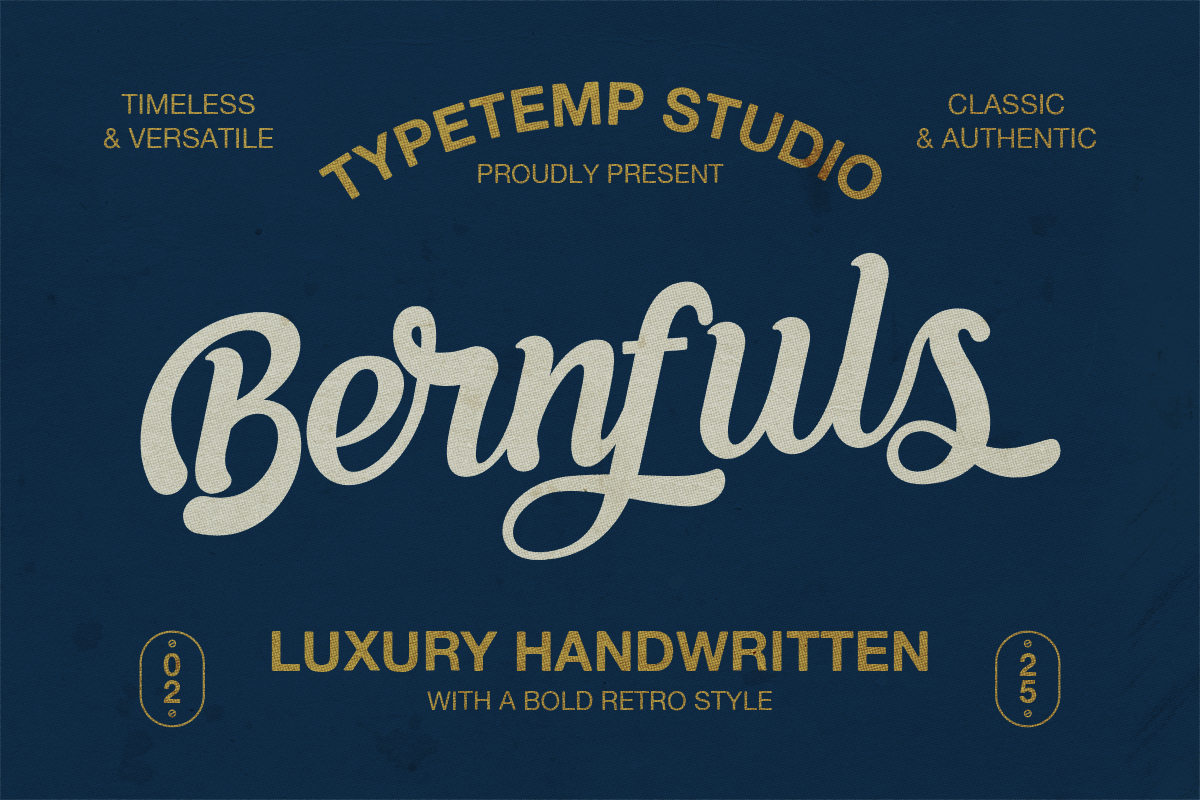
Bernfuls Script Font
Bernfuls Script Font is a stylish font It has both modern and vintage look. Comes with alternatives and ligatures, helps to create stunning logos, quotes, posts, blog posts. branding projects, magazine imagery, wedding invitations, and much more.
- Unique Letterforms